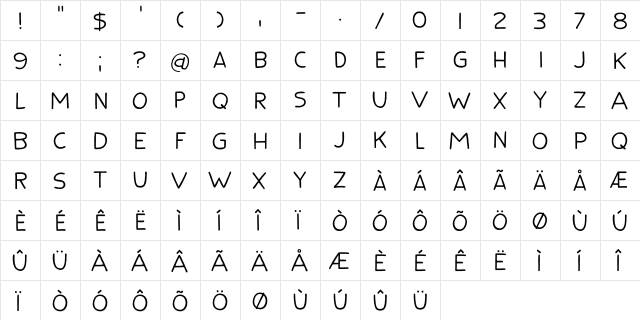
Flying Saucer DEMO Regular
Design Context for Flying Saucer DEMO Typeface
Flying Saucer DEMO is a composed and adaptable typeface that performs quietly and consistently across a wide range of design contexts.